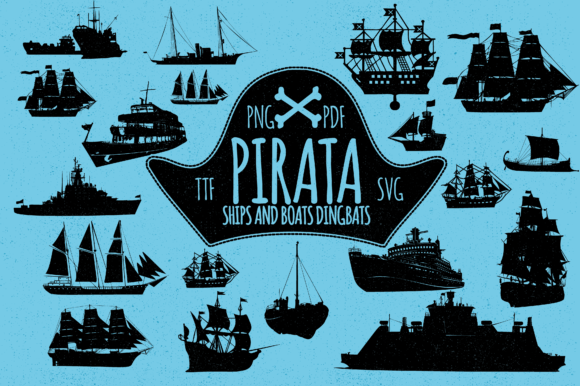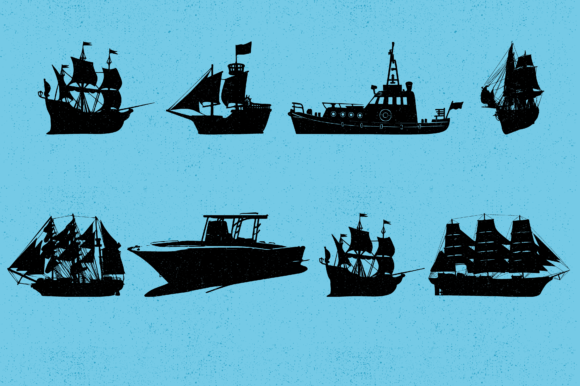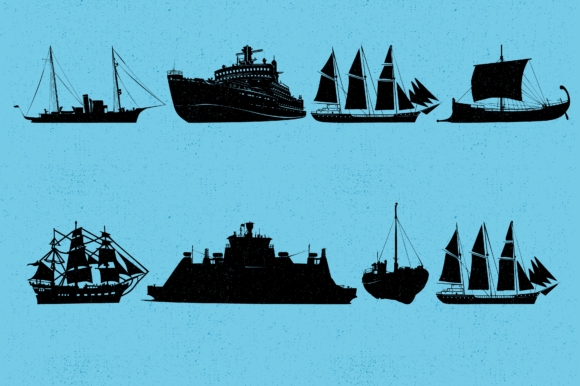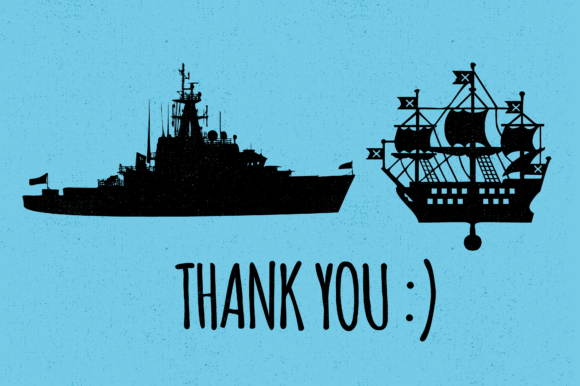
Pirata is a captivating and intricately designed dingbats font that exudes a sense of adventure and mystery. With its unique and pirate-themed glyphs, this font is perfect for adding a bold and distinctive touch to your themed posters, flyers, or prints.
The Pirata font draws inspiration from the swashbuckling world of pirates, bringing to life their symbols, icons, and motifs. Each glyph represents a different element associated with pirates, such as skull and crossbones, treasure chests, pirate ships, anchors, swords, and more. These detailed and carefully crafted designs instantly transport your audience to a world of high seas and hidden treasures.
When you incorporate Pirata into your designs, you instantly inject them with a sense of excitement and intrigue. Whether you’re working on a pirate-themed party invitation, a movie poster, a gaming logo, or any other creative project, this font adds an element of adventure that captures attention and sparks curiosity.
The versatility of Pirata allows you to explore various applications. You can use the individual glyphs as decorative elements or combine them to create unique compositions. The detailed and bold nature of the glyphs makes them highly visible and impactful, ensuring that your design stands out from the crowd.
To access the different pirate-themed glyphs, simply type the corresponding characters on your keyboard. Each letter, number, or symbol is associated with a specific pirate motif, allowing you to easily create engaging visuals that align with your desired theme.
With Pirata, you have the freedom to unleash your creativity and embark on a design journey full of excitement and adventure. Whether you’re creating visuals for a pirate-themed event, a game, or any other project that calls for a touch of swashbuckling charm, this font will captivate your audience and transport them to a world of pirate lore.
So, set sail on your creative endeavors with Pirata and let its unique design and captivating glyphs bring your themed posters, flyers, and prints to life in a truly stunning and unforgettable way.